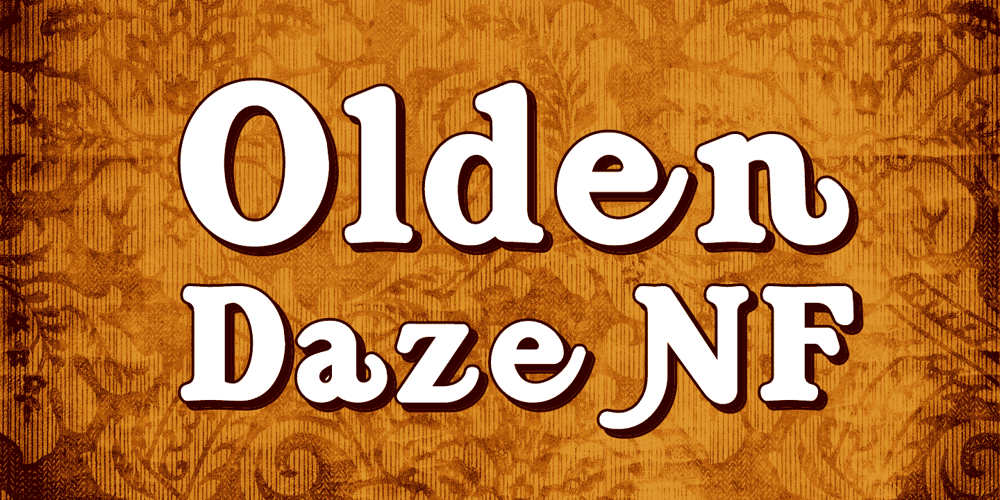
Olden Daze NF Font Family was designed by published by Nick’s Fonts. Olden Daze NF contains 1 styles and family package options. Another gem found in the pages of “Alphabets A to Z”: rustic and rollicking fun in one face. Both versions of this font support the Latin 1262, Central European 1250, Turkish 1254 and Baltic 1257 codepages.